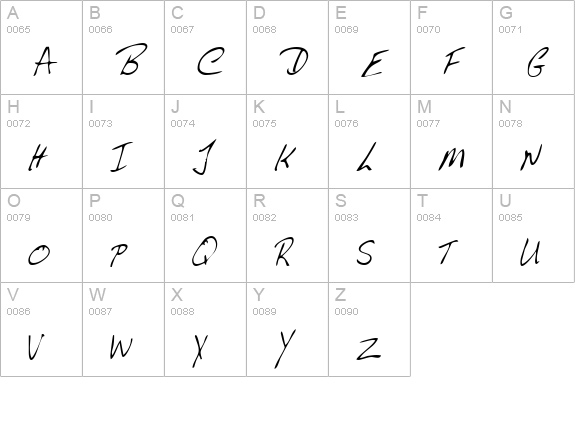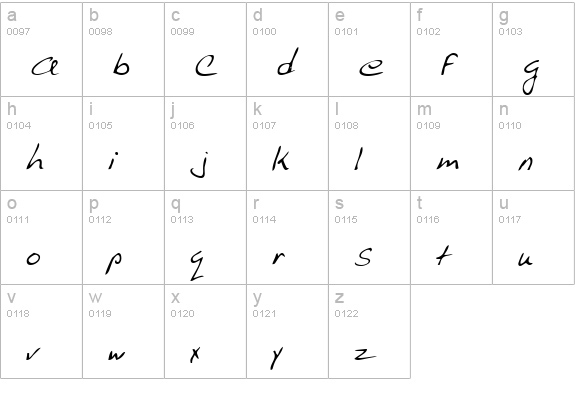
AlvinsHand Regular Font Details
AlvinsHand Regular is the standard, neutral variant in the AlvinsHand typeface family \xE2\x80\x94 well suited to general body text, paragraphs, and standard typographic work.
AlvinsHand Regular font is a charming and playful typeface that adds a touch of whimsy to any design project. Its hand-drawn appearance conveys a sense of warmth and friendliness, making it perfect for anything from invitations to greeting cards to social media graphics. And the best part? AlvinsHand Regular font is completely free to download at FontsMarket.com! Whether you're a seasoned designer looking to add a unique flair to your work or a casual user in need of a fun font for personal projects, AlvinsHand Regular is a fantastic choice. Don't miss out on this delightful font – download it today and let your creativity soar!